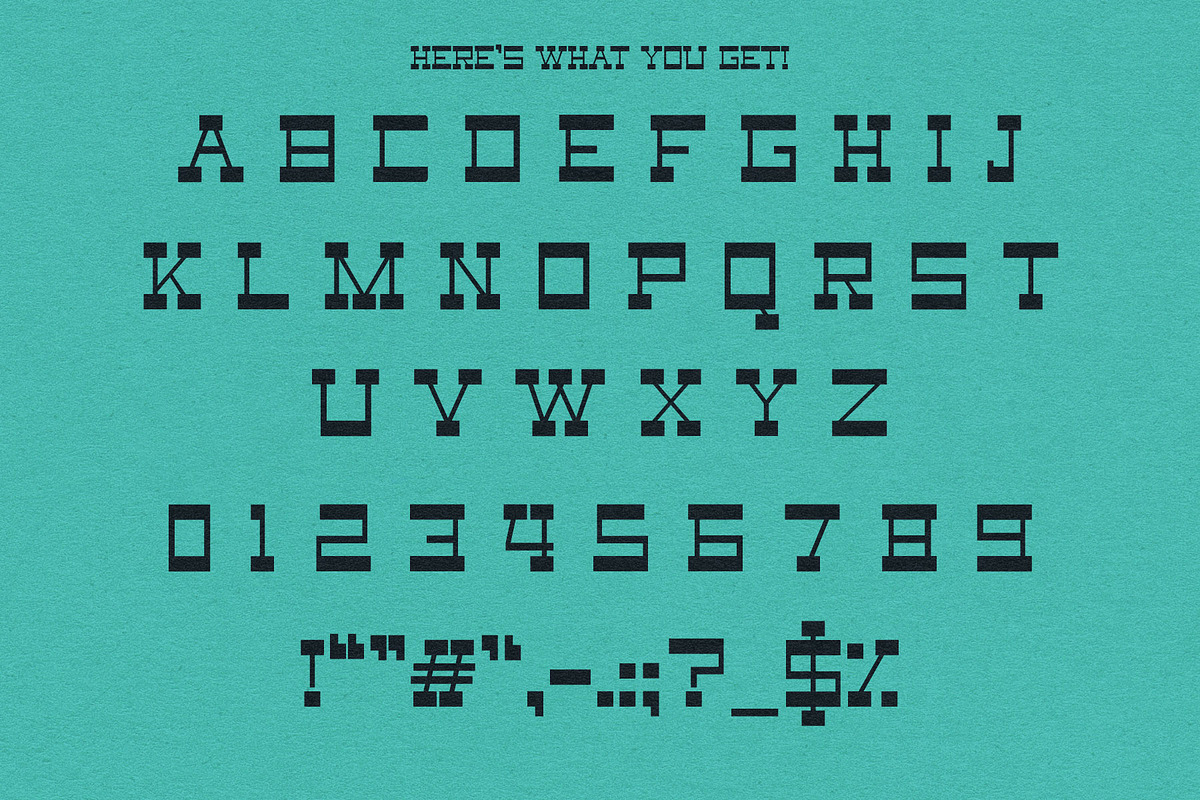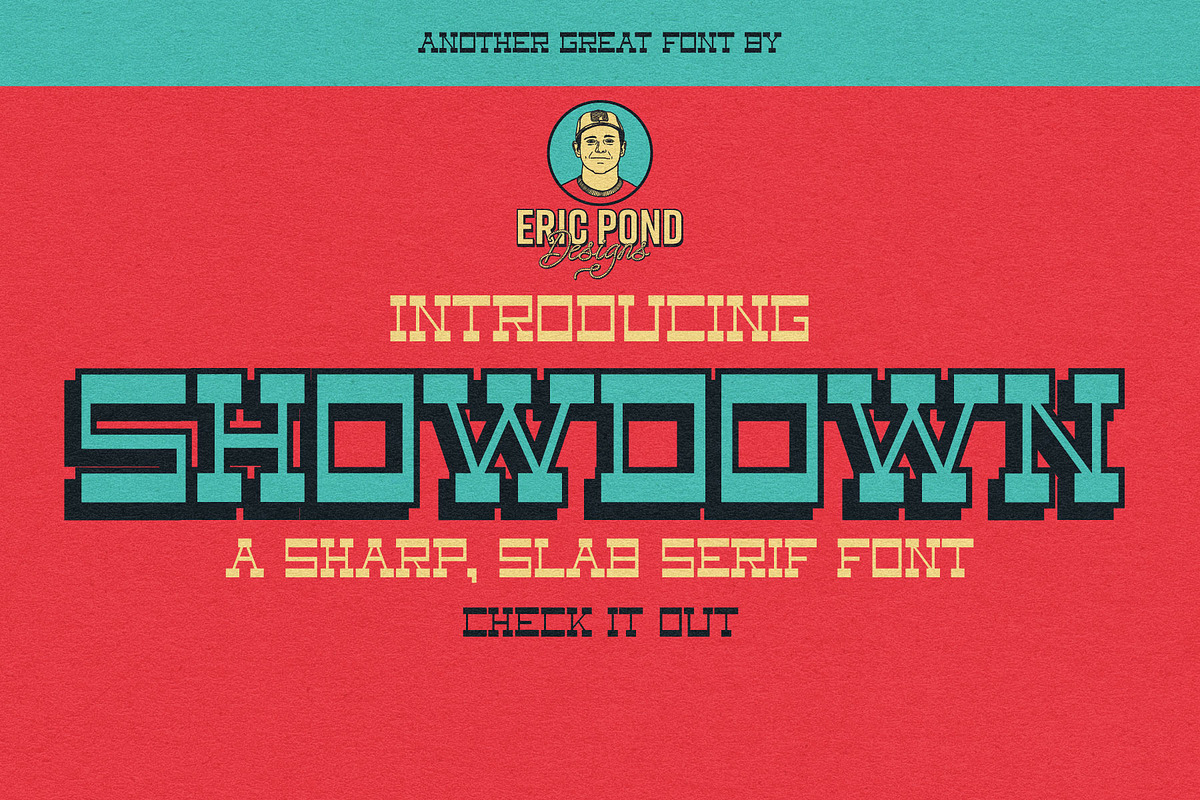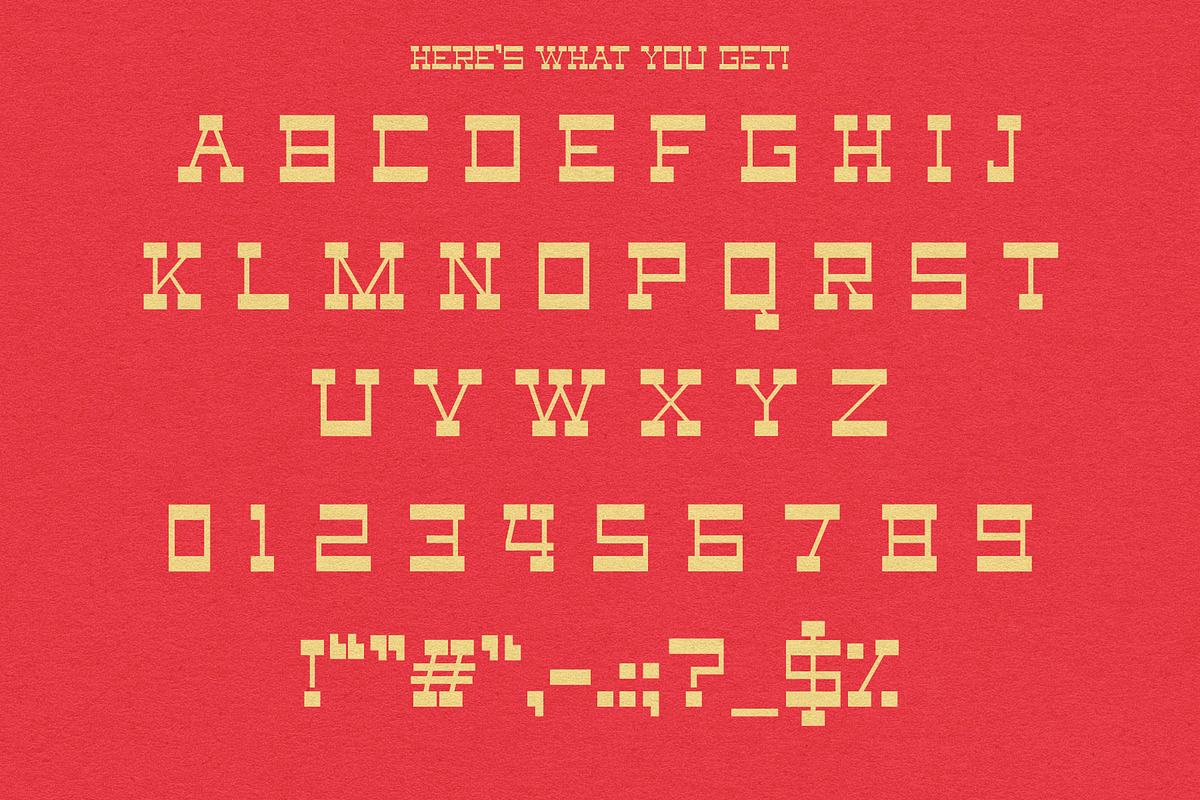
Showdown by Eric Pond Designs
Introducing Showdown, a Sharp Slab Serif by Eric Pond Designs! Showdown features uppercase, numbers and some punctuation.